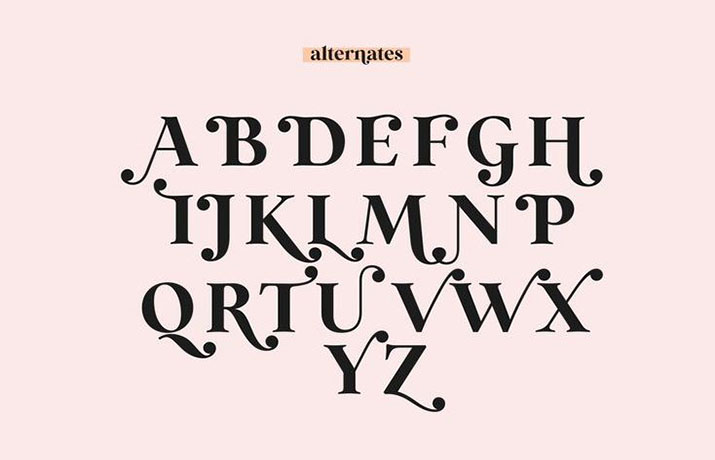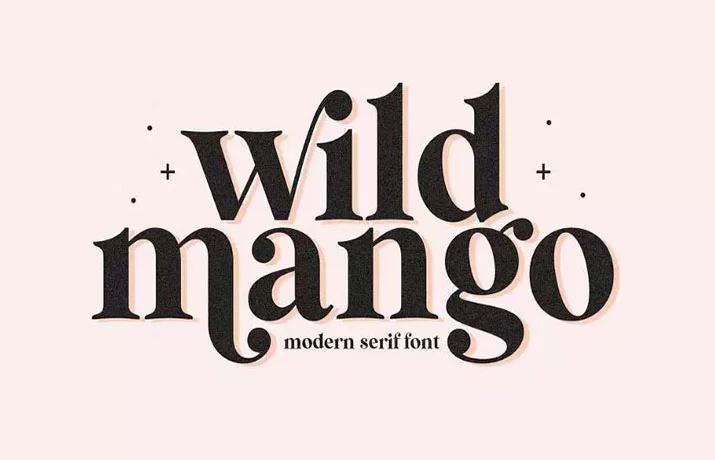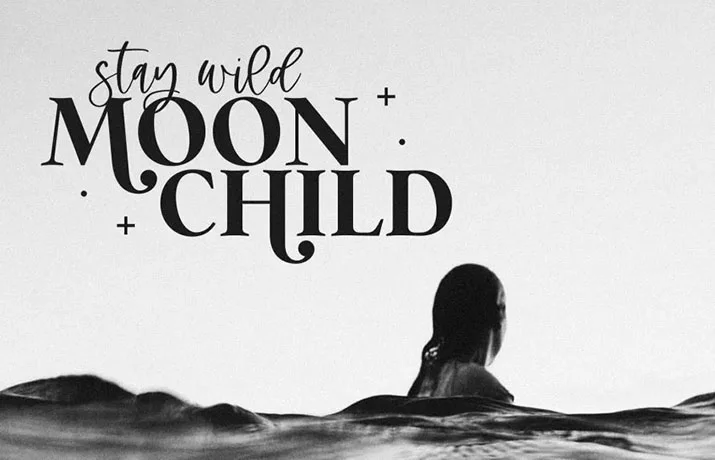
Wild Mango Font is a chic + modern serif typeface that could be an exciting addition to your design project. It was designed and published by Kaitlynn Albani.
It has a great personality in the letters with a playful, bohemian twist. So, It fits in wonderfully for free-spirited, boho designs and more classy editorial looks!
Its playful swashes, bouncy ligatures, and quirky capitals make it an excellent choice for branding, logos, social media, prints, stickers, shirts, svg files, and more!
“Wild Mango typeface comes in a single-weight along with Open Type features. This font includes 293 unique glyphs and 29 ligatures. Moreover, it also supports 66 multilingual languages.”
| Font Name: | Wild Mango Font Family |
| Style: | Serif, Modern, Display |
| Font Designer: | Kaitlynn Albani |
- It is ideal for a wide range of purposes, including branding initiatives, logo creation, wedding designs, social media posts, product packaging, labels, product designs, promotions, product packaging, photography, watermarks, invitations, social media banners, headers, signs, branding, YouTube thumbnails, business names, cosmetics, stationery, cards, and any other project that requires a high degree of readability.
- Moreover, you can use this font with other serif font families like Otama E.p. Font and Calypso Serif Font by Karyna Manukian.
This font supports 66 languages.
What is Wild Mango Font?
Wild Mango Font is a chic + modern serif typeface that could be an exciting addition to your design project. It was designed and published by Kaitlynn Albani.